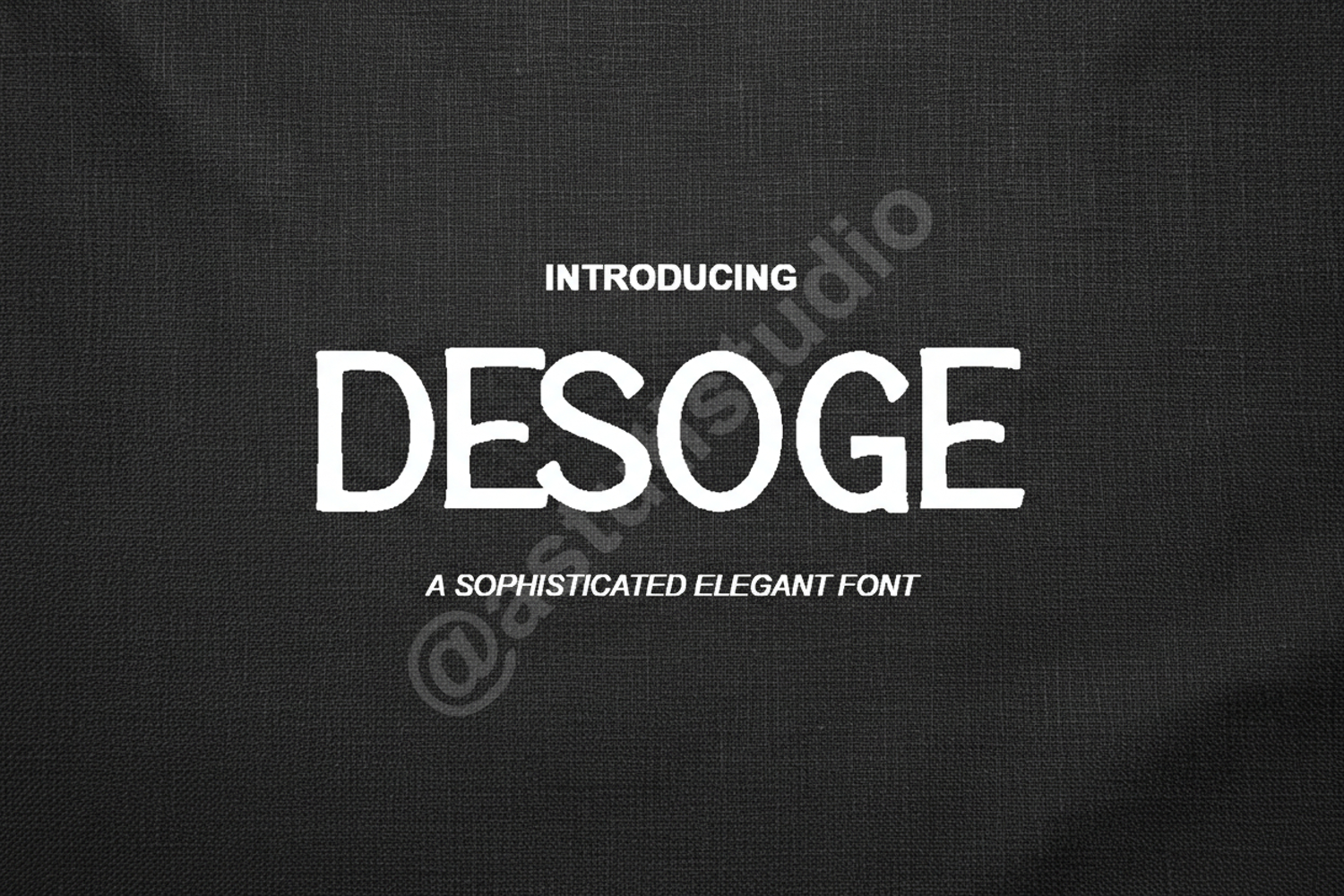
Desoge - Elegant Modern Sans Serif
Desoge
Desoge is a premium, high-end sans serif typeface meticulously crafted for designers who demand sophistication and clarity. This font strikes a perfect balance between timeless elegance and contemporary minimalism, making it a versatile addition to any professional toolkit. Whether you are working on a minimalist brand identity or a complex editorial layout, Desoge provides the clean aesthetic needed to make your work stand out.
- Full set of Uppercase and Lowercase characters
- Numbers and Punctuation
- Multilingual support for global accessibility
- Luxury Branding: Create a high-end feel for fashion, beauty, or lifestyle brands.
- Editorial Design: Perfect for magazine headers, body copy, and sophisticated digital publications.
- Wedding Stationery: Bring a modern, clean touch to invitations, menus, and place cards.
- Logo Design: Build strong, memorable brand marks with balanced proportions.
- Social Media: Elevate your Instagram, Pinterest, and marketing graphics with professional typography.